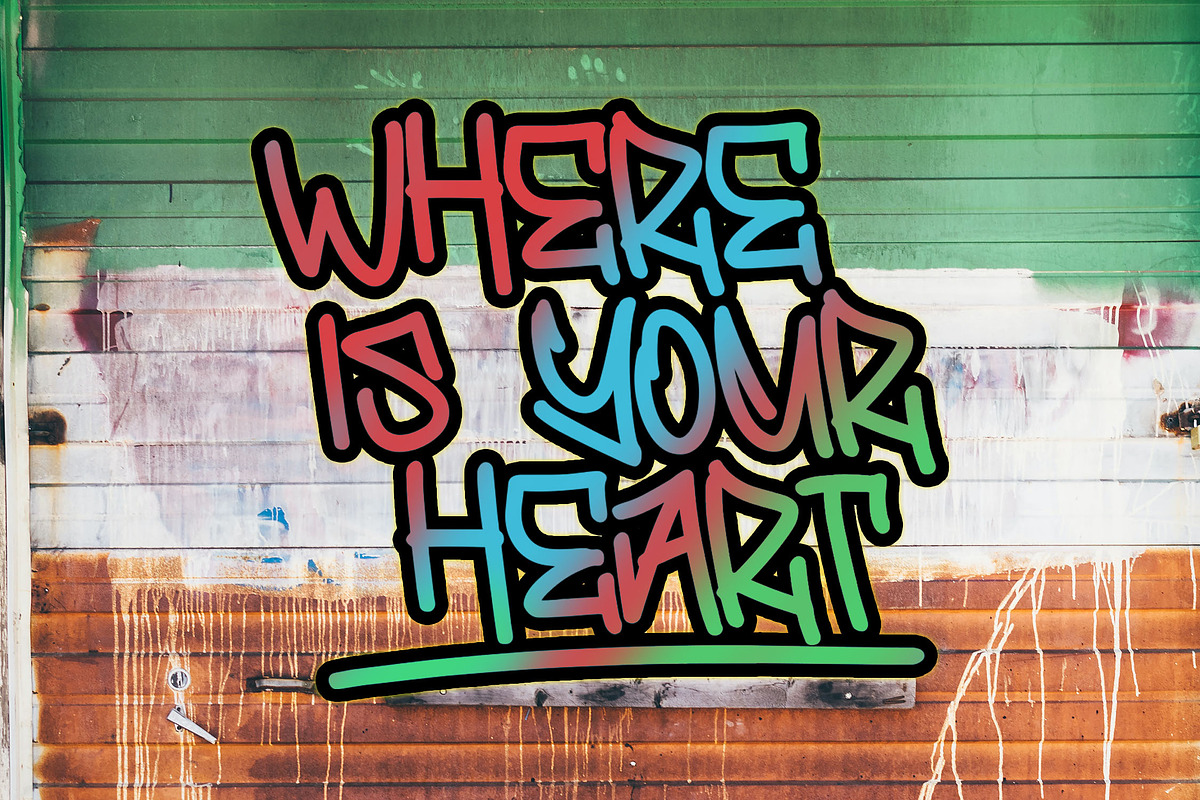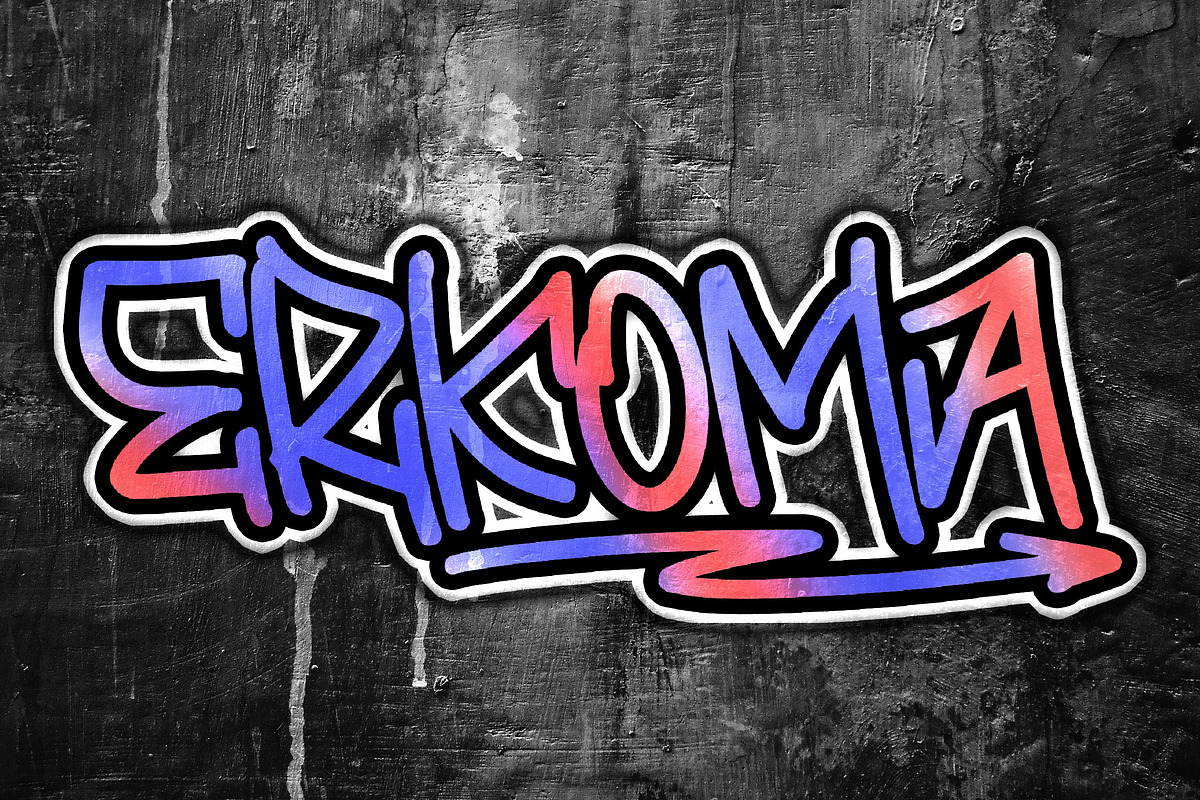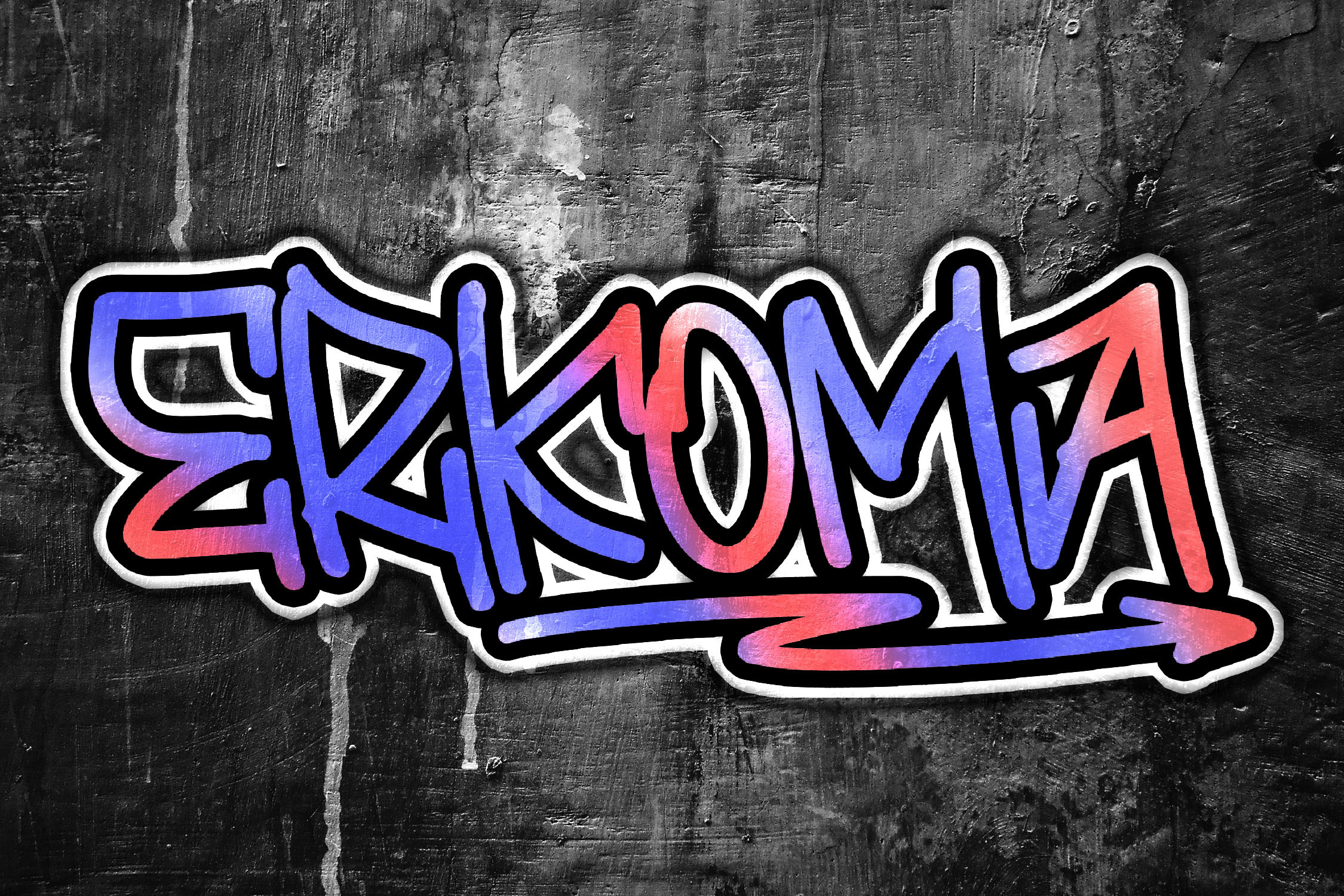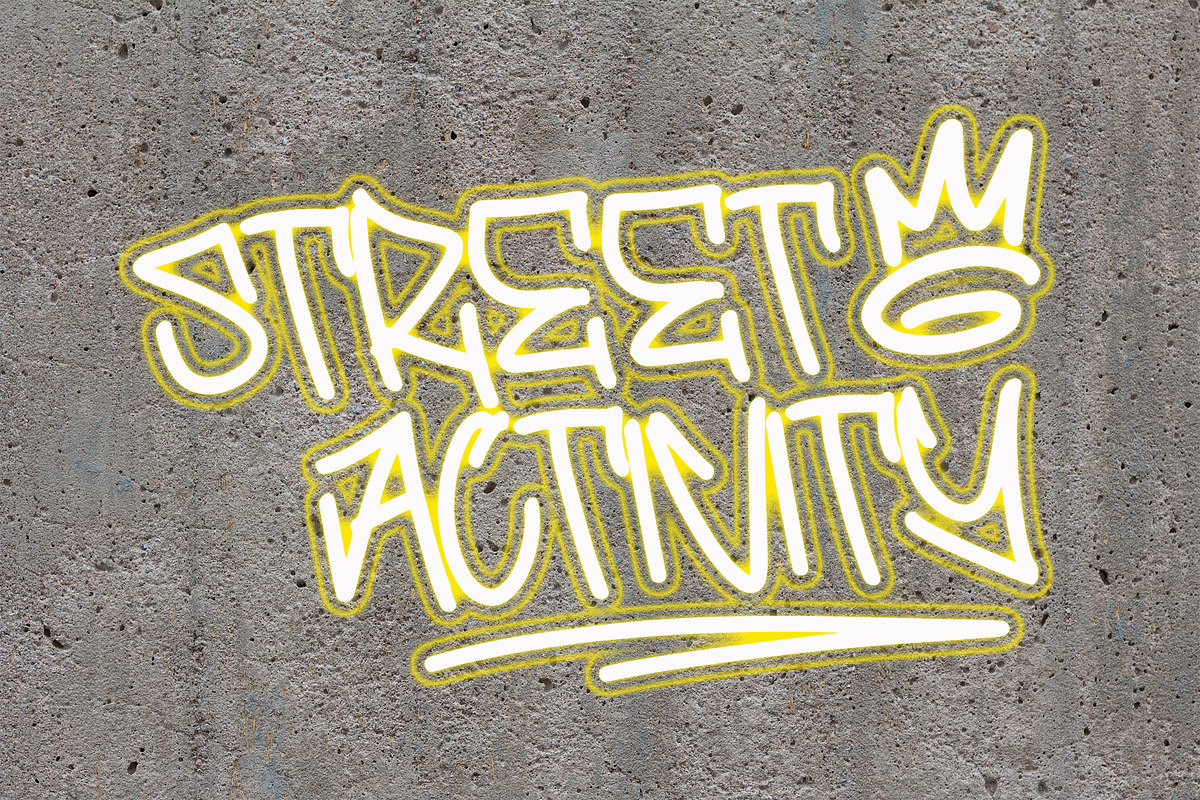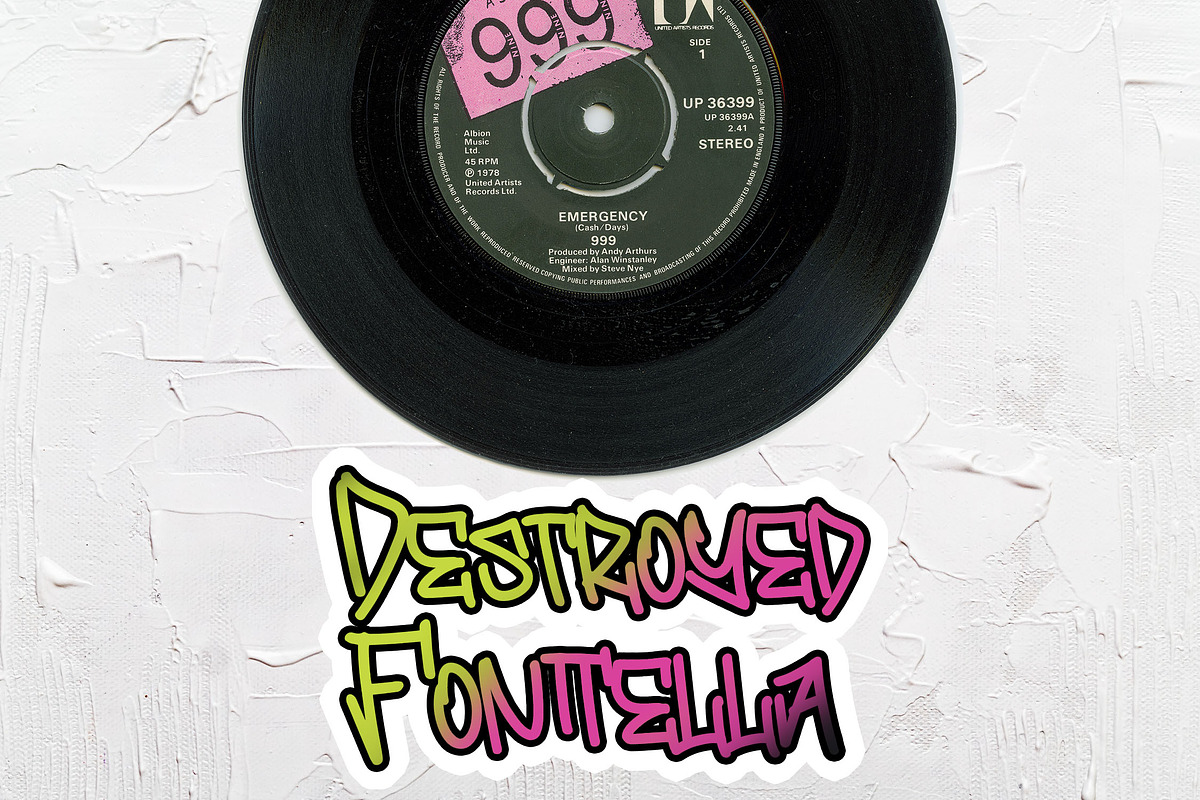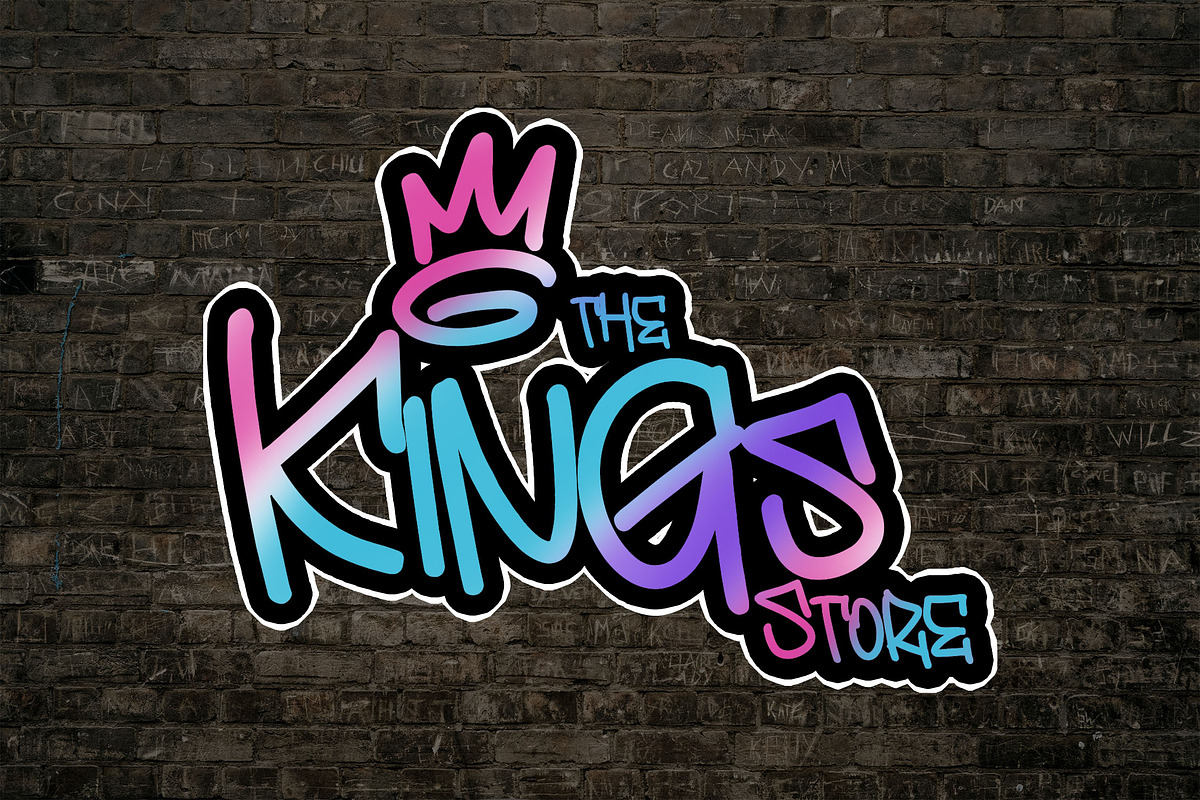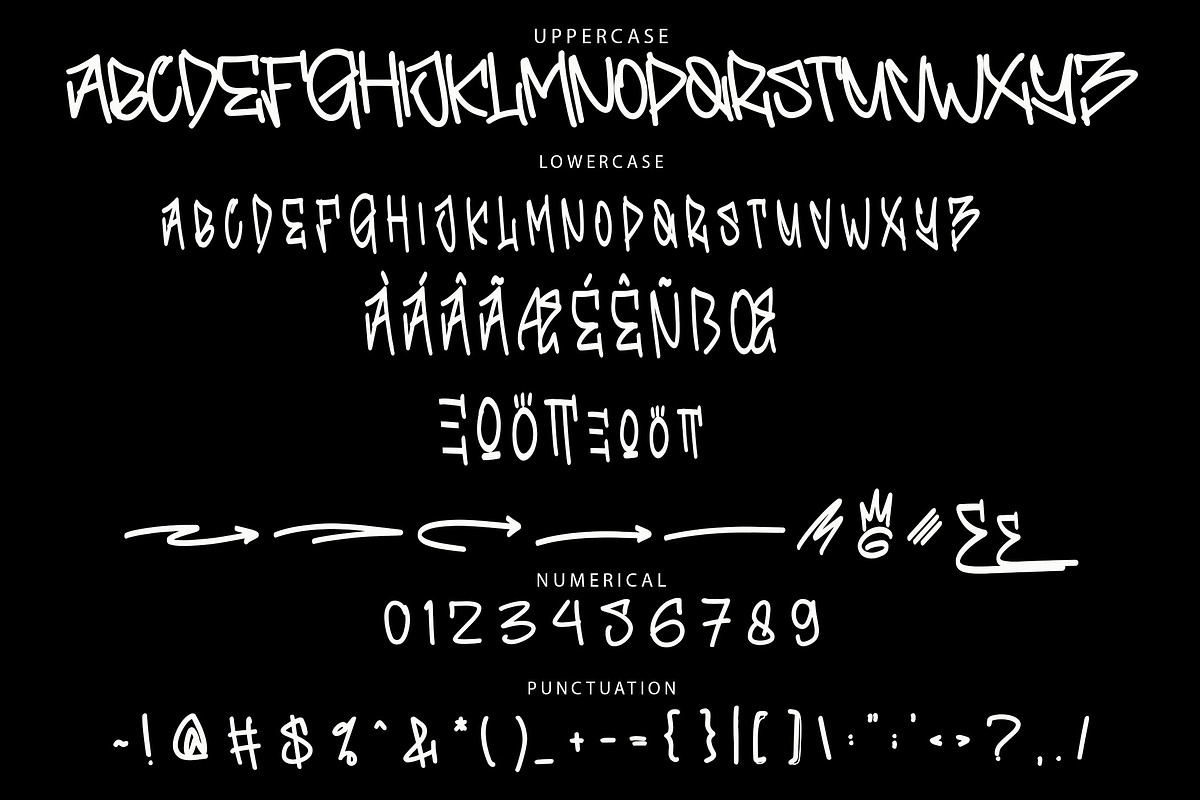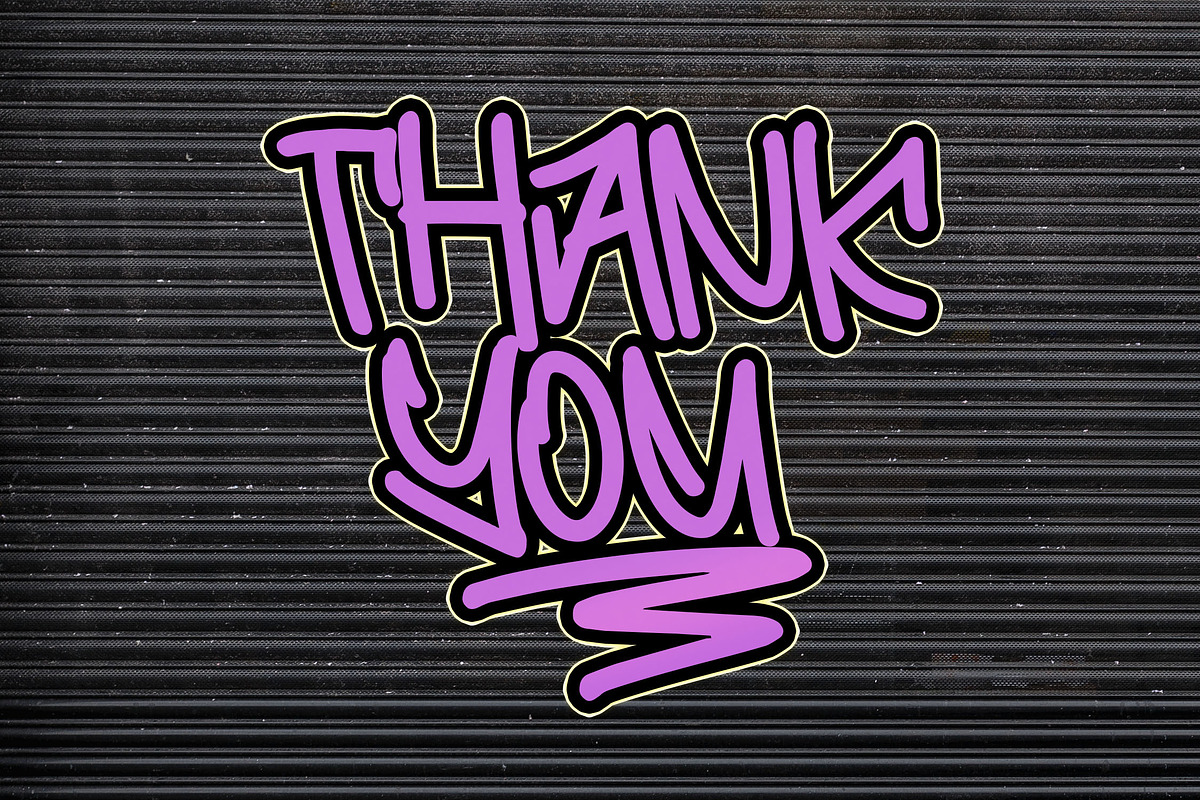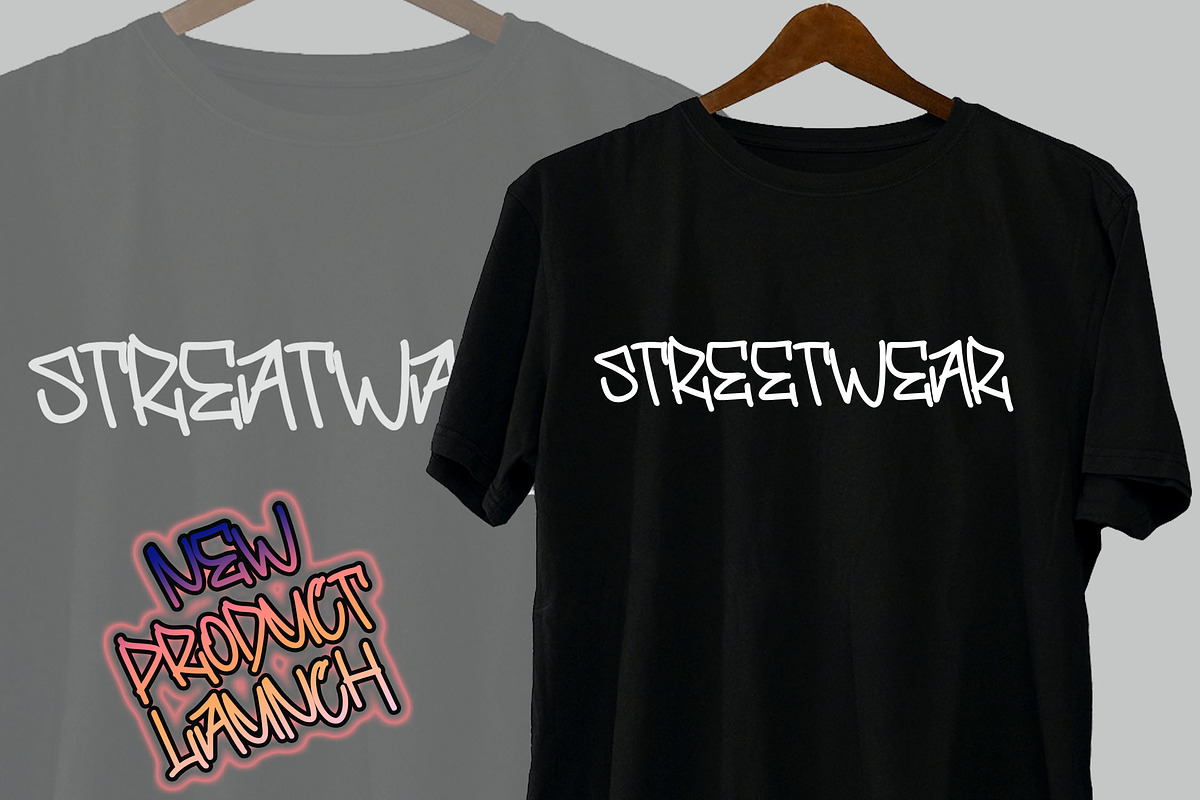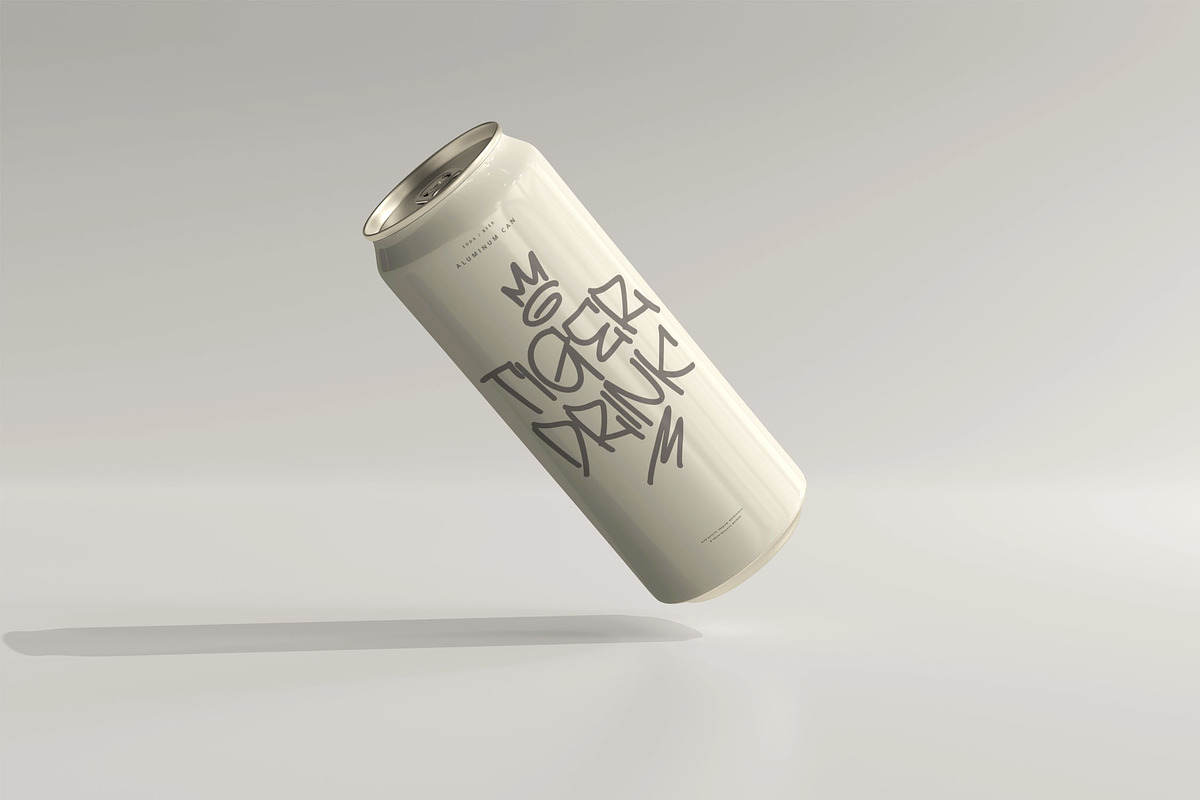
ERKOMA Graffiti Font
ERKOMA: Bold Monoline Graffiti Font
Meet ERKOMA, a graffiti font with a striking bold monoline brush style, designed to add character and impact to your projects. With its unique, eye-catching shapes, ERKOMA brings an authentic street-art vibe, perfect for branding, posters, streetwear, and more. This font’s bold style instantly enhances visual appeal with a creative, edgy touch.
- Ligatures & Stylistic Alternates: Custom options to elevate your designs.
- Swashes & Multilingual Support: Adds flair with global reach.